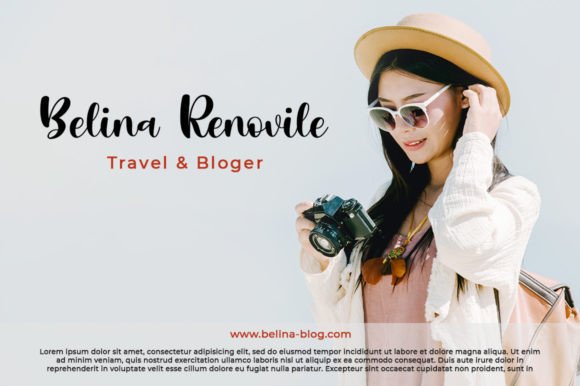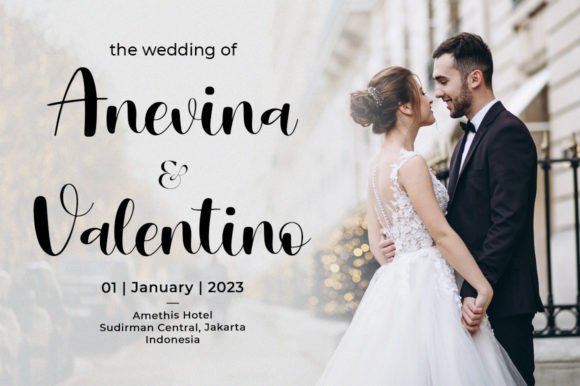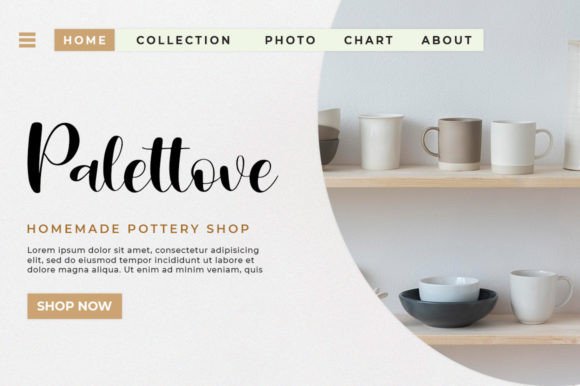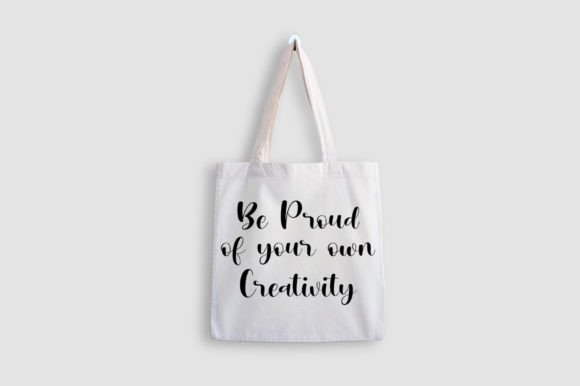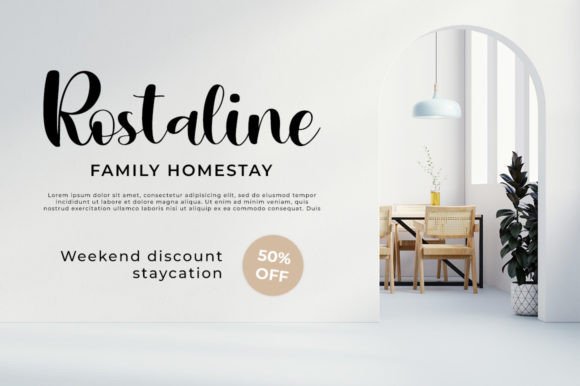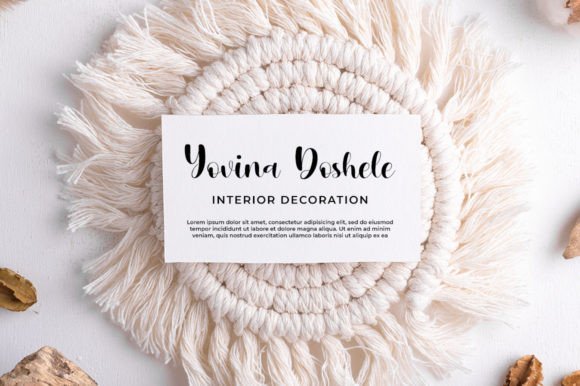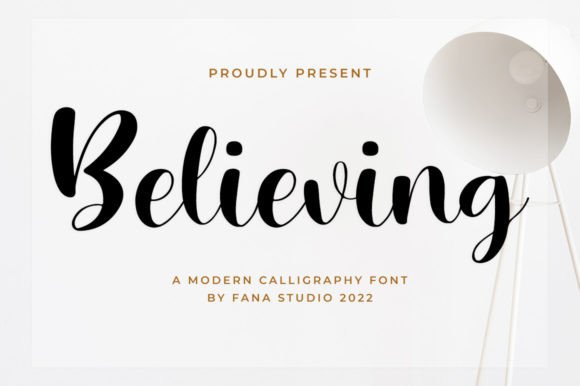
Discover the Charm of Believing Font: A Lovely Modern Calligraphy Font
Are you a designer or crafter looking for a font that can add a touch of elegance and romance to your projects? Look no further than Believing Font, a lovely and modern calligraphy font that’s perfect for a variety of design ideas. In this article, we’ll explore the features and benefits of Believing Font, and show you how it can elevate your designs to the next level.
What is Believing Font?
Believing Font is a modern calligraphy font that’s designed to bring a sense of joy and romance to your designs. Its gentle and flowing lines make it perfect for a wide range of projects, from wedding invitations and greeting cards to branding and packaging. This font is carefully crafted to provide a unique and personalized touch to your designs, making them stand out from the crowd.
Key Features of Believing Font
- Lovely and Modern Design: Believing Font boasts a modern and elegant design that’s perfect for designers and crafters who want to add a touch of sophistication to their projects.
- Gentle and Flowing Lines: The font’s gentle and flowing lines make it easy to read and give it a romantic feel that’s perfect for a variety of design ideas.
- Versatile: Believing Font can be used for a wide range of projects, from digital designs to print materials.
- Easily Customizable: The font is easily customizable, allowing you to adjust the size, color, and style to fit your design needs.
Benefits of Using Believing Font
So, why should you choose Believing Font for your next project? Here are just a few benefits of using this lovely modern calligraphy font:
- Adds a Touch of Elegance: Believing Font adds a touch of elegance and sophistication to your designs, making them perfect for special occasions and events.
- Sets You Apart: The font’s unique and modern design helps you stand out from the crowd and sets your designs apart from others.
- Perfect for a Variety of Projects: The font’s versatility makes it perfect for a wide range of projects, from digital designs to print materials.
Design Ideas Using Believing Font
So, what can you create with Believing Font? Here are just a few design ideas to get you started:
- Wedding Invitations: Use Believing Font to create beautiful and elegant wedding invitations that set the tone for the big day.
- Greeting Cards: Add a touch of romance and elegance to your greeting cards with Believing Font.
- Branding and Packaging: Use the font to create unique and eye-catching branding and packaging that sets your business apart.
- Digital Designs: Believing Font is perfect for digital designs, including social media graphics, blog posts, and more.
In conclusion, Believing Font is a lovely and modern calligraphy font that’s perfect for designers and crafters who want to add a touch of elegance and romance to their projects. Its gentle and flowing lines make it easy to read and give it a romantic feel that’s perfect for a variety of design ideas. With its versatility, ease of use, and unique design, Believing Font is a great choice for anyone looking to elevate their designs to the next level.